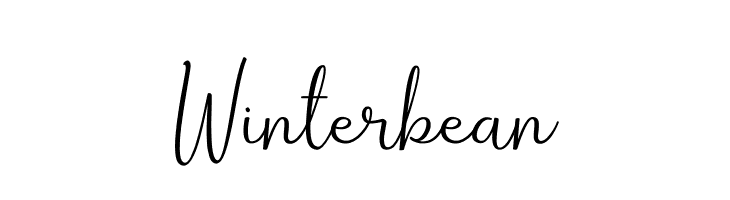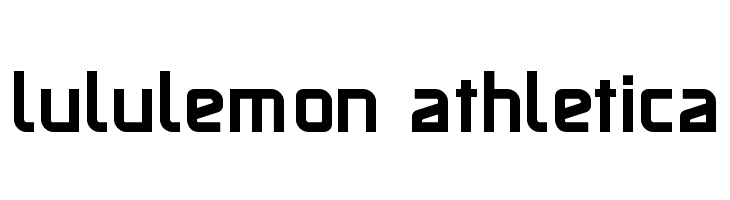
A bold, geometric font with a modern and futuristic style.
A bold, tall, and narrow font with high contrast, perfect for dramatic displays.
A tall, narrow, and elegant font with high contrast and modern appeal.
A bold, ornate blackletter font with intricate detailing, reminiscent of medieval scripts.
A refined and elegant serif typeface with high contrast and elongated strokes.
A classic serif font with high contrast and elegant strokes.
A playful, decorative font with circular patterns forming each character.
A bold, 3D Blackletter-inspired font with a modern twist and decorative details.
A dynamic and fluid script font with elegant, flowing letterforms.
A medieval gothic-style font with ornate, angular serifs and decorative elements.